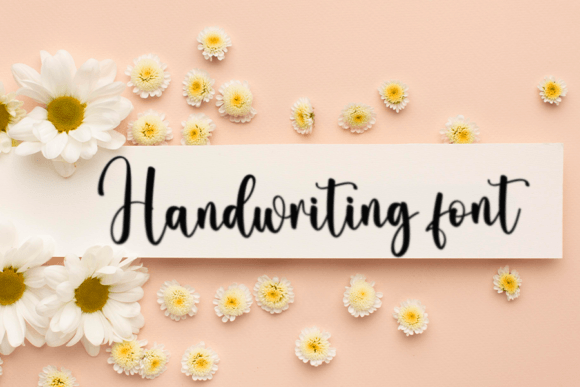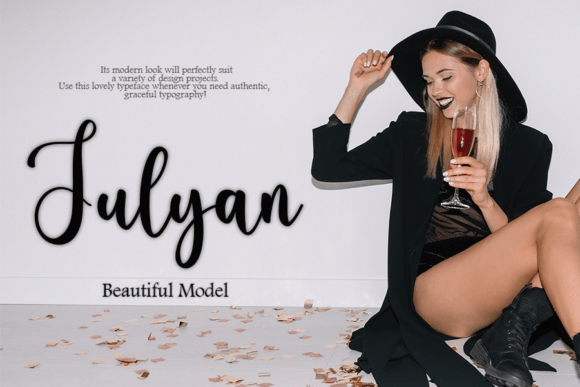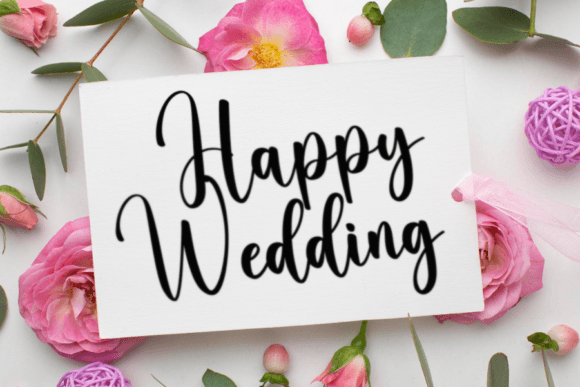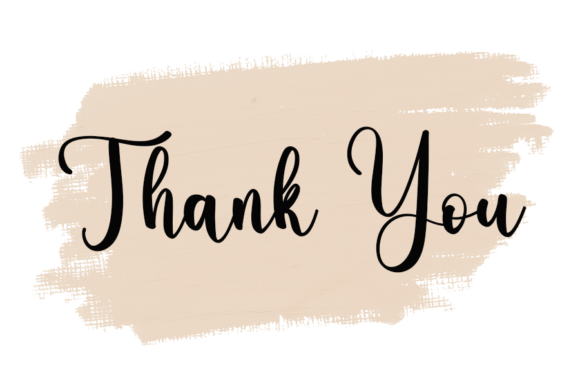
Garden Font
Garden Handwritten Font – Elegant and Timeless Typeface
The Garden Handwritten Font is a neat and elegant script typeface created to bring sophistication and beauty to your projects. With its graceful handwritten strokes and timeless appeal, it is perfect for adding a personalized touch. Whether you’re designing invitations, greeting cards, or branding, this font ensures your work looks polished and unique.
A Script Font with Elegant Flow
The Garden Handwritten Font blends smooth handwritten curves with refined proportions, making it stylish yet easy to read. Its flowing lines add charm to your designs, while its professional balance ensures versatility. Because of this, it works well for both casual and formal design needs.
One of the best uses of the Garden Handwritten Font is in wedding invitations, greeting cards, and event stationery. Its elegant style makes messages feel warm and personal. At the same time, it enhances logos, posters, and product packaging with a sophisticated handwritten look.
The Garden Handwritten Font adapts beautifully to a wide variety of contexts. From branding and social media posts to labels and business cards, it adds a natural handwritten charm. Its clarity and elegance make it suitable for both digital and print projects.
Why Designers Love Garden Font
Designers appreciate the Garden HandwrittenFont for its balance of creativity and professionalism. It has enough decorative detail for stylish projects while remaining practical for everyday use. This versatility makes it a valuable addition to any design toolkit.
In summary, the Garden HandwrittenFont is a neat, elegant, and versatile script typeface. With its graceful handwritten strokes, quick installation, and wide usability, it is perfect for invitations, greeting cards, posters, and branding. Don’t miss the chance to download Garden HandwrittenFont and bring timeless elegance to your creative work.